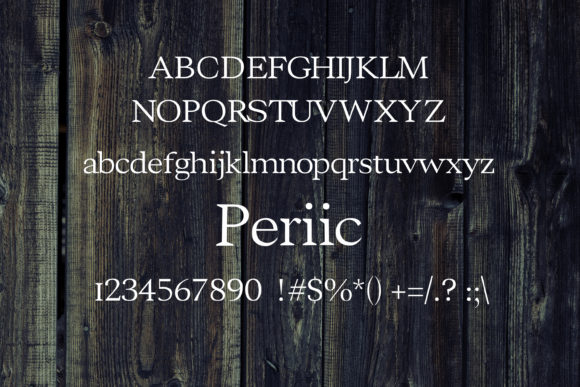
Introduction to Periic Font
Have you ever been stuck on a creative project, staring at a blank page, trying to find the perfect font to bring your vision to life? We’ve all been there. But what if you stumbled upon a design resource that could elevate your work and make it truly stand out? Enter the Periic Font, a cool and serious serif font with a timeless appeal that’s sure to take your projects to the next level.
With its sleek lines and sophisticated feel, the Periic Font is the perfect addition to any design project. Whether you’re working on a logo, brochure, or website, this high-quality font is sure to impress. And the best part? It’s available for free download, complete with a transparent background, making it easy to incorporate into your designs.
Key Features of Periic Font
- High-quality design resource for creative projects, perfect for digital art and graphic design.
- Features a transparent background, making it easy to customize and overlay onto various backgrounds.
- Font size: scalable, with no fixed size limitations, allowing for precise control over its appearance.
- Resolution: supports high-resolution displays, making it ideal for use in digital design and print-on-demand applications.
- Unique, stylish design that adds a touch of elegance to any creative project, setting it apart from more generic fonts.
Honest Review: Periic Font
As a designer, I’m always on the lookout for high-quality design resources to elevate my creative projects. Recently, I had the chance to work with the Periic Font, and I’m excited to share my honest review.
- Unique and stylish design: The Periic Font has a distinctive look that adds a touch of sophistication to any project.
- High-quality glyphs: The font features detailed and well-crafted glyphs that ensure crisp and clear text rendering.
- Transparency issues: I encountered some transparency issues when using the font on a transparent background, which can be frustrating.
- Limited language support: The font may not be optimized for languages with non-Latin scripts, which can limit its use in certain projects.
Overall, the Periic Font is a solid choice for designers looking for a unique and high-quality font. While it has some limitations, its free download and stylish design make it a great addition to any design resource library.
Periic Font
The Periic Font is a high-quality design resource that can be used in various creative projects. It features a transparent background, making it easy to overlay on images or use as a standalone element.
Using Periic Font in Design Software
The Periic Font is commonly used in branding, marketing materials, and creative projects. It’s a versatile font that can be used for headings, body text, and other design elements.
Tips for Getting the Most Out of Periic Font
To get the most out of the Periic Font, experiment with different font sizes, colors, and combinations. You can also use it in conjunction with other design elements, such as images and graphics.
Alternatives to Periic Font
Great Vibes is a high-quality, elegant script font perfect for creative projects that require a touch of sophistication. It features a transparent background, making it ideal for overlaying on images or using as a design resource for logos and branding.